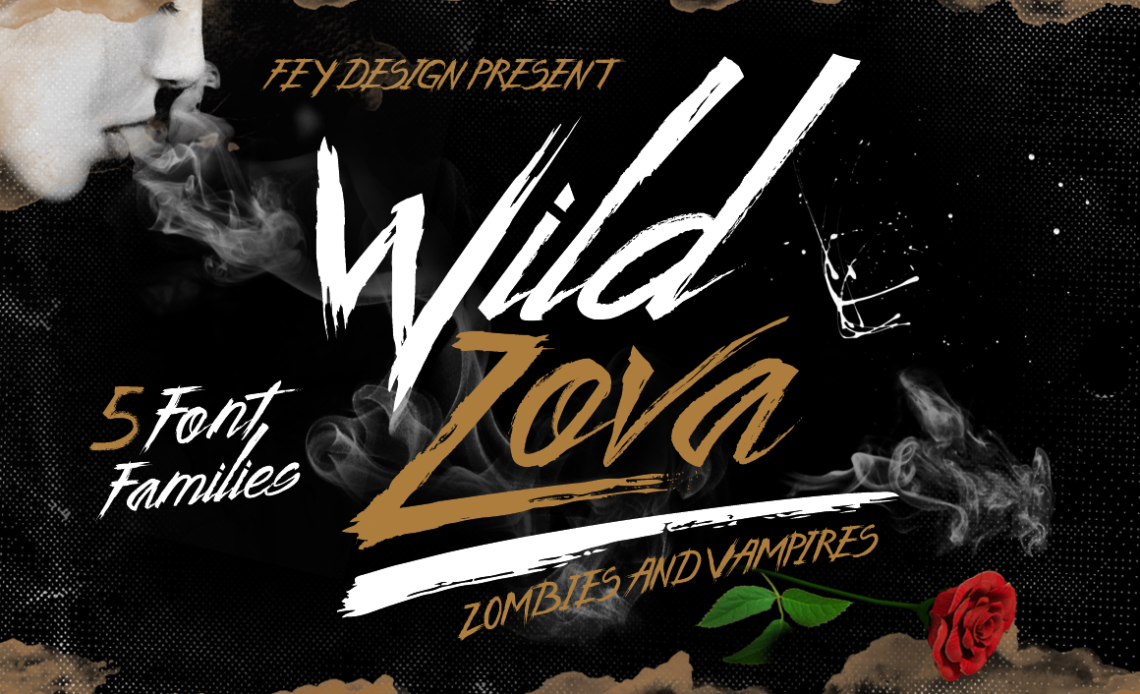
Unleash the captivating darkness within your designs with Wild Zova, a mesmerizing script font that draws inspiration from the haunting worlds of zombies and vampires. This extraordinary font, meticulously crafted by feydesign, is a testament to the beauty that can be found in the macabre.
Immerse yourself in the rich, grungy textures of Wild Zova, where every letter dances with a painterly flair. The messy, yet controlled strokes evoke a sense of mystery and intrigue, making this font the perfect choice for conveying powerful messages and creating designs that linger in the mind.
Wild Zova's versatility extends far beyond the realm of horror and the occult. Its unique charm lends itself effortlessly to a diverse range of projects, from eye-catching logos and branding to captivating posters and social media graphics. Whether you're crafting a website that commands attention or designing apparel that exudes an air of individuality, Wild Zova is your font of choice.
With its captivating darkness and boundless creativity, Wild Zova beckons you to embrace the unconventional and break free from the mundane. Explore the depths of your imagination and create designs that resonate with your audience, leaving an unforgettable impression that echoes long after they've encountered your work.
Don't settle for ordinary fonts that fade into the background. Embrace the power of Wild Zova and let your designs speak volumes. Step into the realm of the extraordinary and make a statement with every word you write.